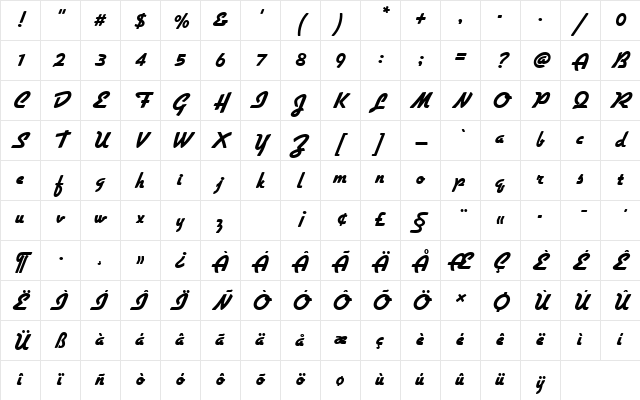
GilliesGotDExtBolRo1 Regular
Design Context for GilliesGotDExtBolRo1
GilliesGotDExtBolRo1 is a composed and adaptable typeface that performs quietly and consistently across a wide range of design contexts.
Pro Tip: Use GilliesGotDExtBolRo1 in both headline and body roles to test its range before committing to a single application.